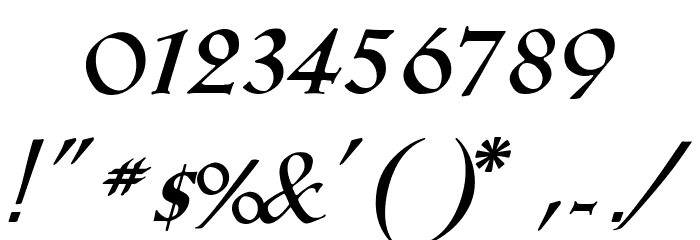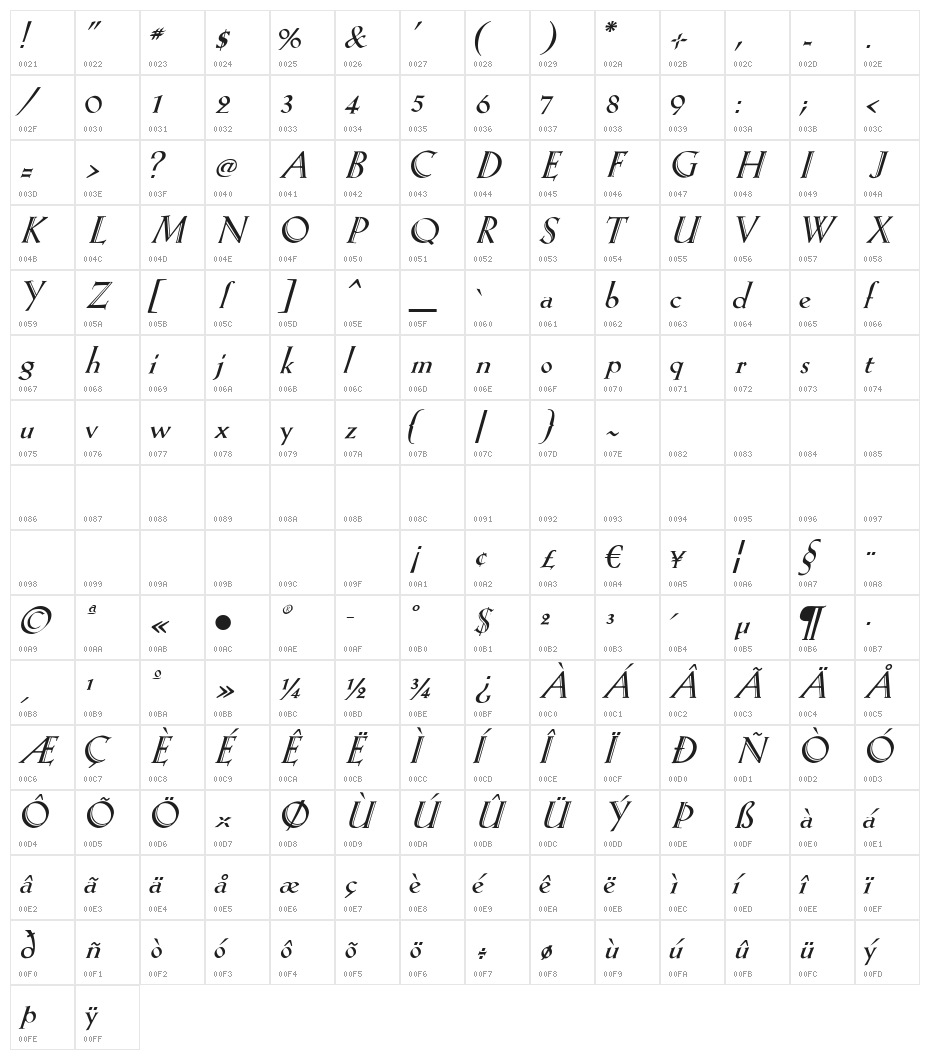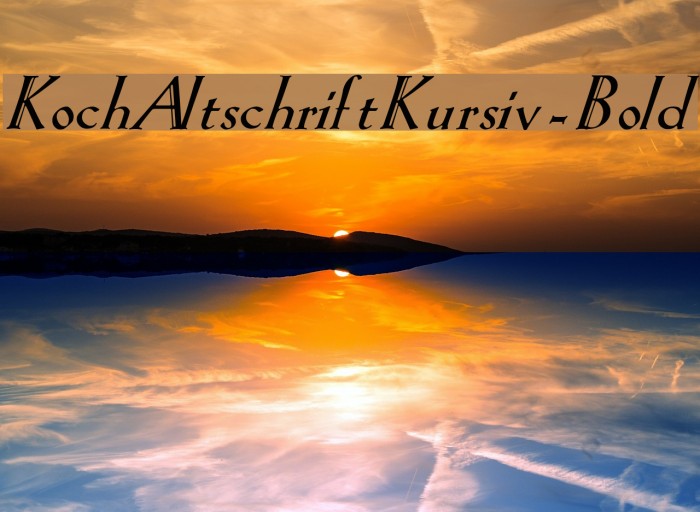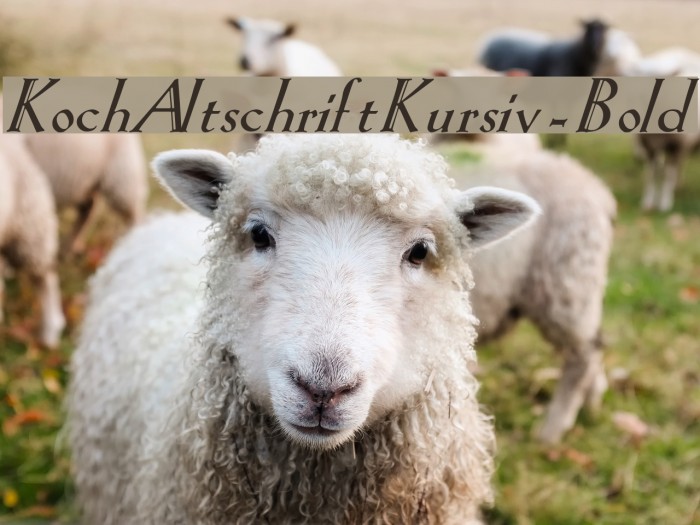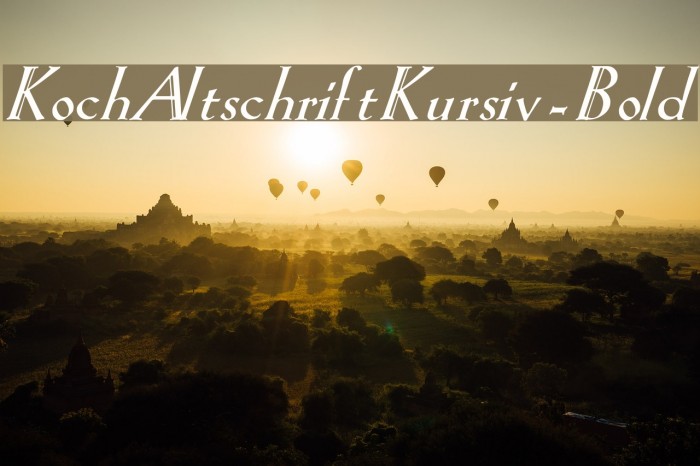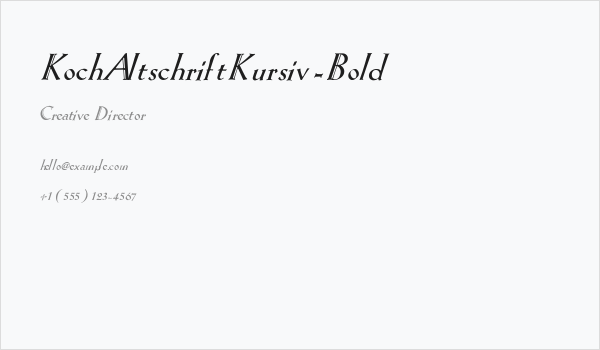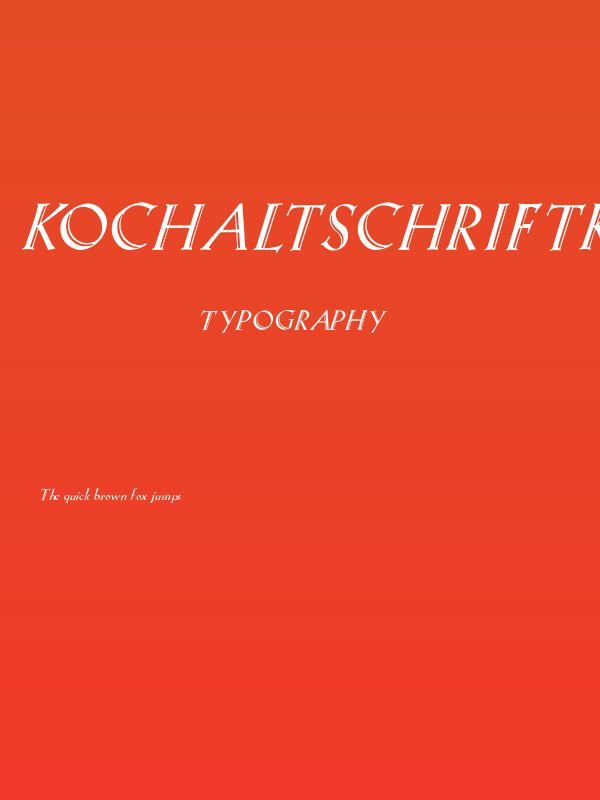
KochAltschriftKursiv-Bold Font
KochAltschriftKursiv-Bold Description
This font features a classic and elegant cursive style with a bold weight, characterized by its flowing and dynamic letterforms. The uppercase letters exhibit a distinct slant and sharp serifs, giving them a sophisticated and formal appearance. The lowercase letters maintain a consistent italic angle, enhancing the fluidity and grace of the text. Numbers are designed with a similar slant, ensuring uniformity across different types of characters. Special characters are crafted with attention to detail, maintaining the overall aesthetic of the font. The combination of bold strokes and delicate curves makes this font suitable for projects that require a touch of elegance and tradition.